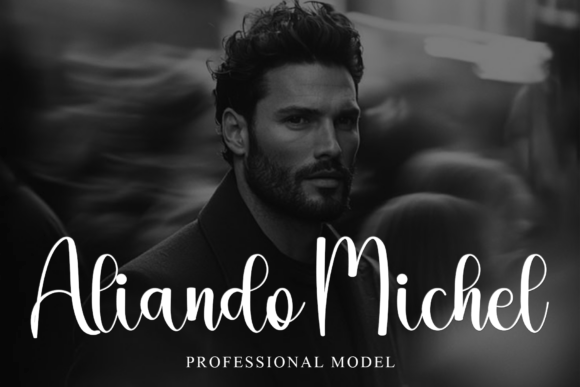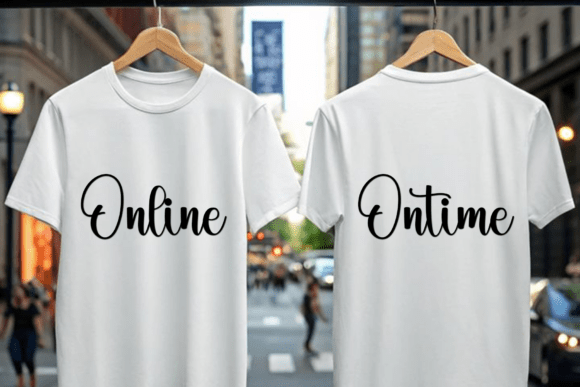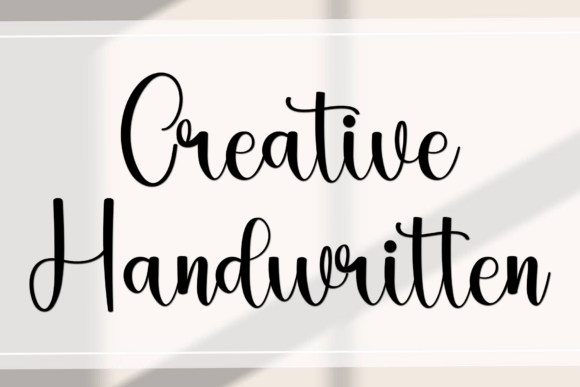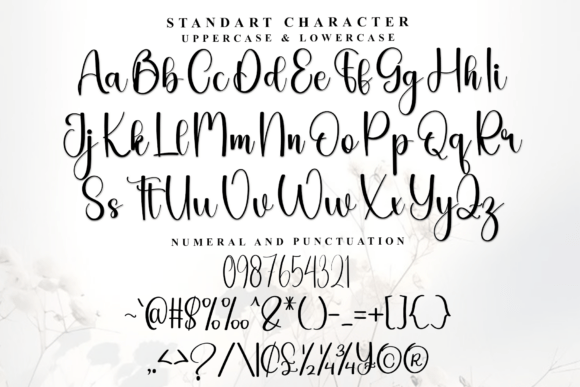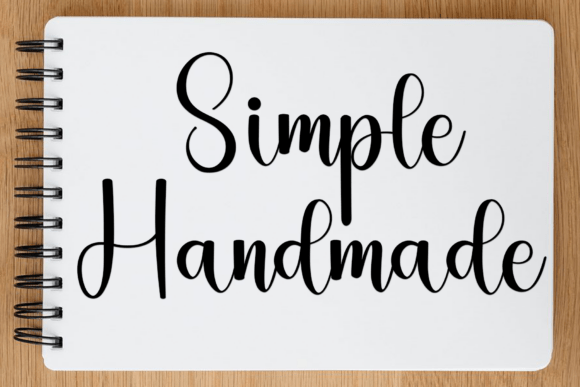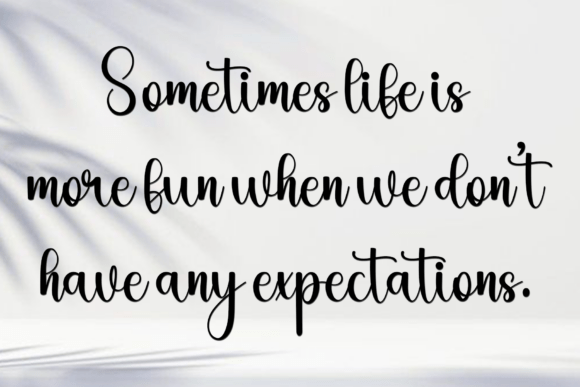
Unleashing Creativity with Black Font
Have you ever been brainstorming ideas for a new project and suddenly, a spark of inspiration hits? You’re flooded with creative ideas and can’t wait to bring them to life. For designers, this feeling is a familiar sensation, and the right font can be the key to unlocking it. That’s where Black Font comes in – a casual and creative typeface that exudes warmth and friendliness.
Perfect for personal projects, invitations, and social media graphics, Black Font’s round, playful strokes create a relaxed and approachable feel. Its charming, hand-drawn aesthetic adds a fun and unique touch to any design. With standard PUA Encoded glyphs, Black Font is compatible with various application engines, making it a valuable addition to any designer’s toolkit.
Key Features of Black Font
- Font Size: Designed to be highly legible at various sizes, from 8-point to 24-point, making it suitable for both body text and headlines.
- Unique Characteristic: Black Font features a unique, modern design with a subtle contrast between the font’s strokes, creating a clean and sophisticated look.
- Language Support: Supports a wide range of languages, including Latin, Cyrillic, Greek, and many others, making it a versatile choice for multilingual projects.
Designer Review: Black Font
Overall, I think Black Font is a decent choice for headings and titles, but it’s not the most versatile font out there. ✨ It does a great job of adding a touch of sophistication and elegance to your design, especially when used in combination with a clean and simple layout.
Here are some things that work well with Black Font:
- ✨ Great for headings and titles, especially in formal or professional contexts
- ✨ Works well with high-contrast backgrounds to create a striking visual effect
- ✨ Can be used to add a touch of luxury or sophistication to a design
However, there are some limitations to using Black Font:
- ⚠️ May be difficult to read at small font sizes or in low-contrast environments
- ⚠️ Can be quite heavy or dense, which may not be suitable for all designs
- ⚠️ Limited flexibility in terms of customization or modification
Overall, I think Black Font is a solid choice for specific design contexts, but it’s not a one-size-fits-all solution. With careful consideration of the design goals and constraints, it can be a great addition to a design project.